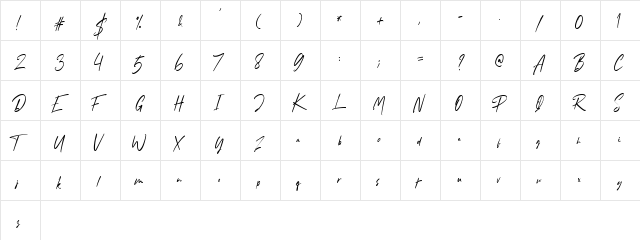
Camelia Regular
| Foundry | hustletter |
| Designer | hustletter |
Design Context for Camelia Typeface
Camelia is a composed and adaptable typeface that performs quietly and consistently across a wide range of design contexts.